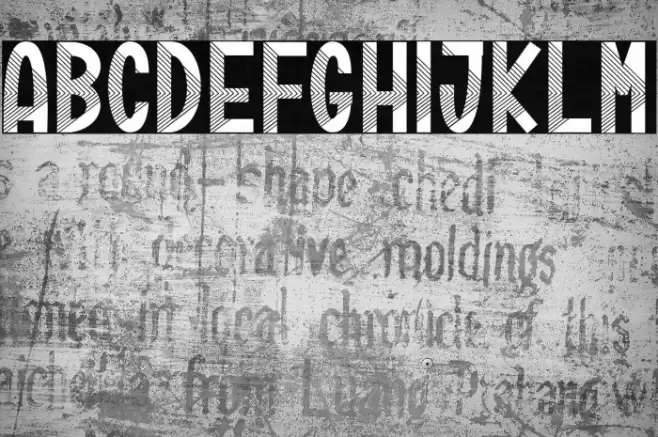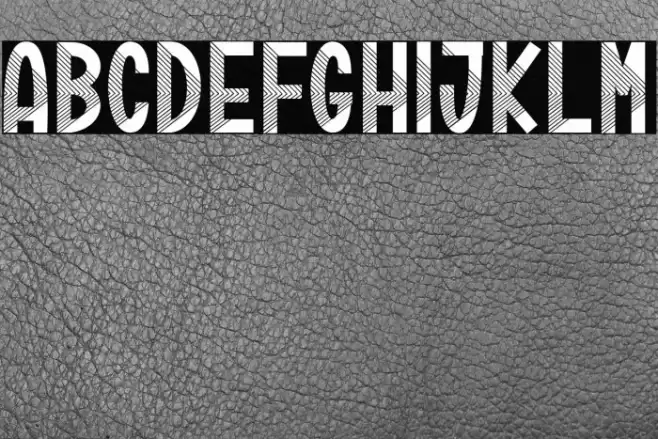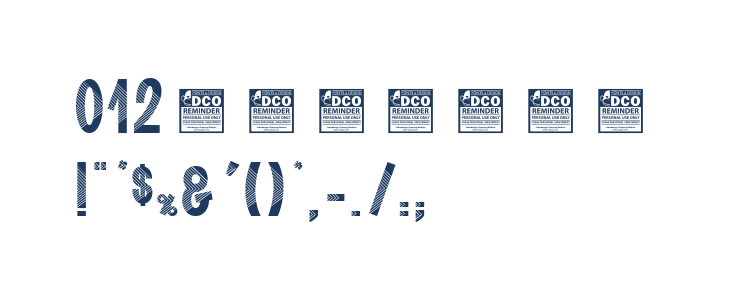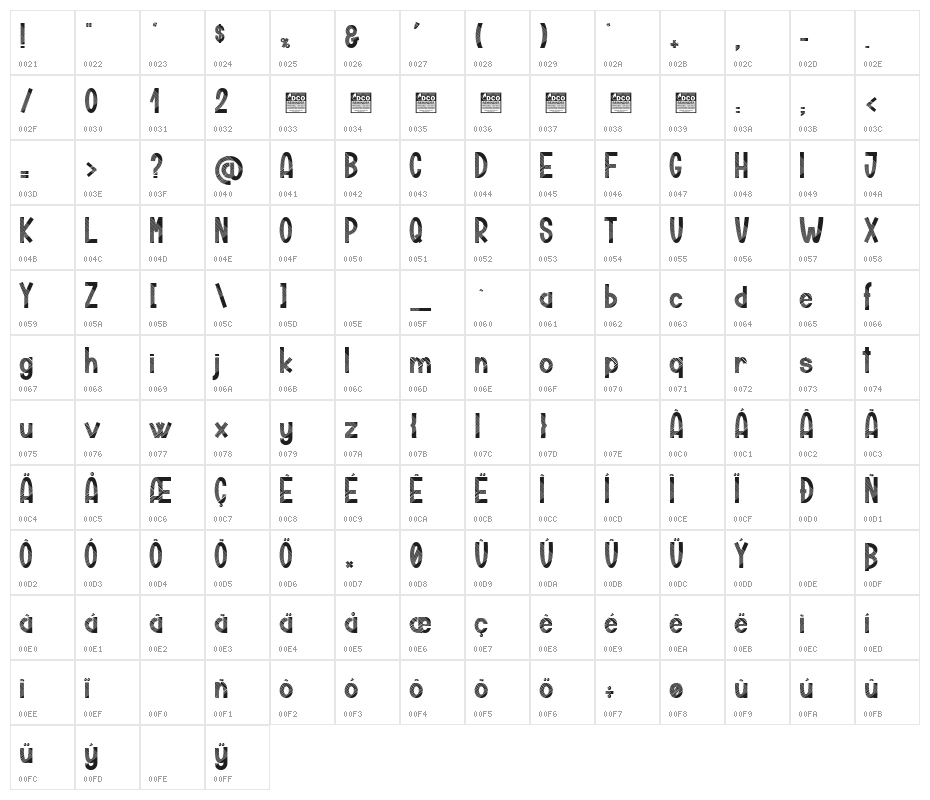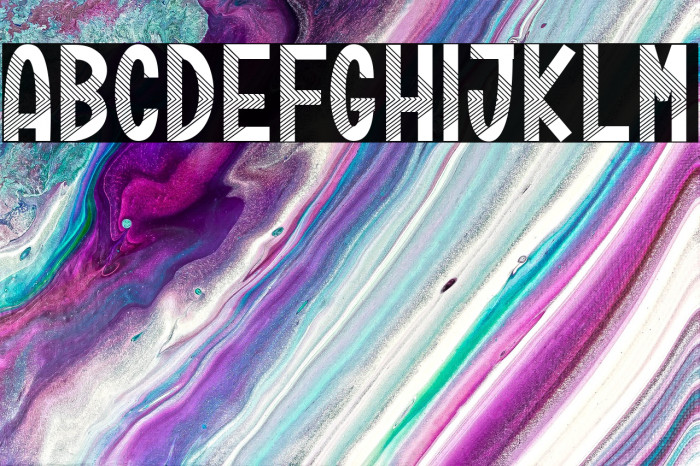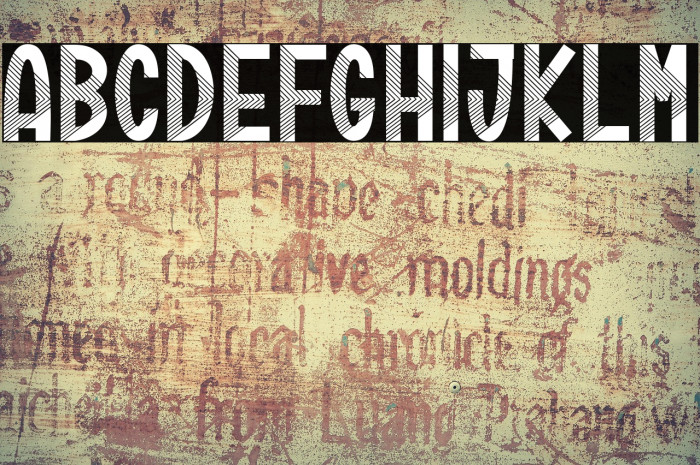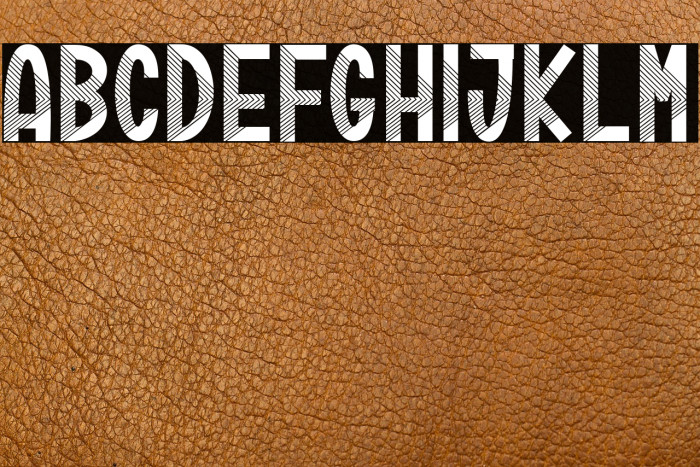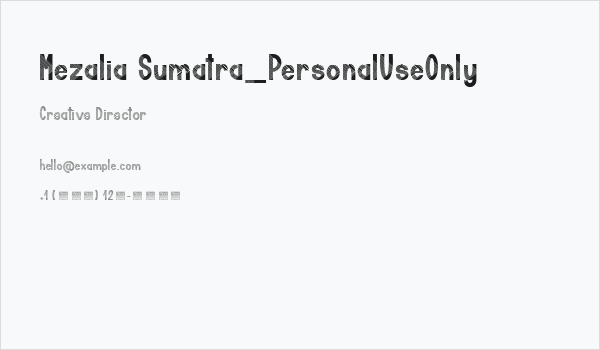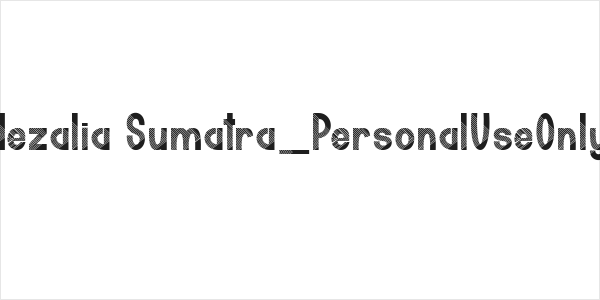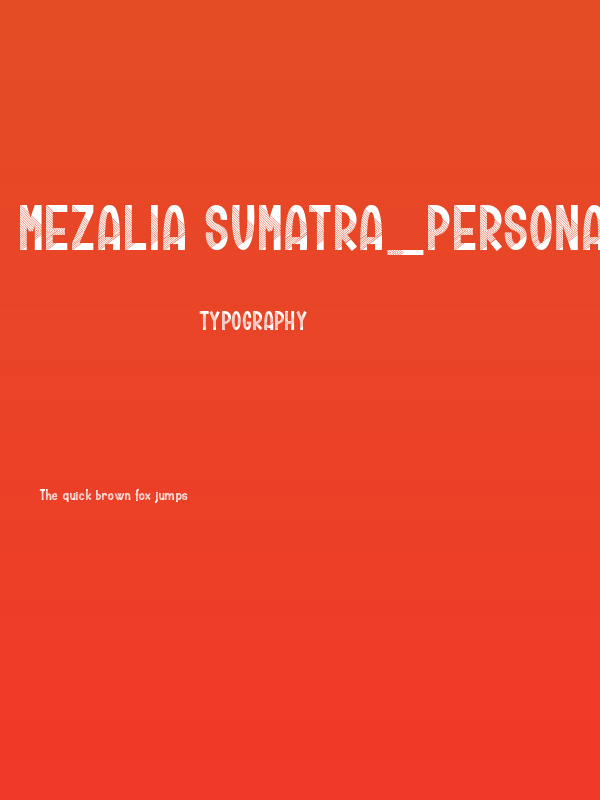
Mezalia Sumatra_PersonalUseOnly Font
Mezalia Sumatra_PersonalUseOnly Description
This font features a bold and striking design with a unique diagonal line pattern filling each character. The uppercase and lowercase letters maintain a consistent style, offering a sense of cohesion across the alphabet. The numbers and special characters are designed with the same distinctive pattern, ensuring uniformity throughout. The font's boldness and decorative elements make it stand out, ideal for attention-grabbing designs. The diagonal lines add a dynamic and modern touch, making it suitable for contemporary projects.
A bold, decorative font with diagonal line patterns for a modern look from Uncategorized fonts.
- Font: Mezalia Sumatra_PersonalUseOnly
- Proposed Projects: Ideal for posters, headlines, branding, and any project requiring a bold, eye-catching typeface.